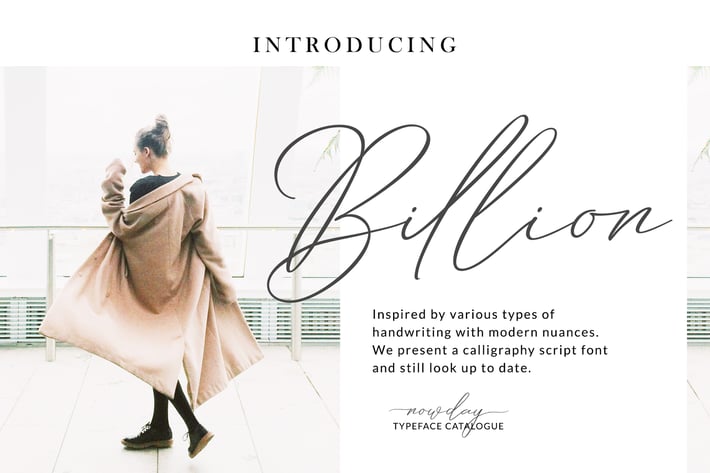
Billion Script + Webfont
Introducing a Billion Script
A script font with a smooth handwritten style. Comes with 515 glyphs with alternates & ligatures. Billion Script is perfect for branding projects, homeware designs, product packaging, use in name card, invitation cards, logo, websites, quotes, etc. Simply as a stylish text overlay to any background image, for your font pairing or anything requiring a sprinkle of elegance.
Billion Script support accent letters of Central Europa, Western (À Â Æ È Ë ã ä æ è...), if you have another request, you are welcome to contact or request it to us